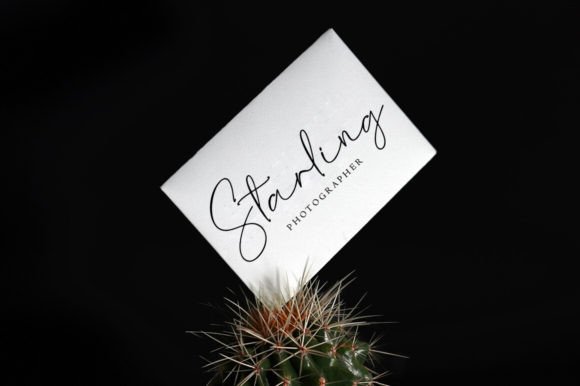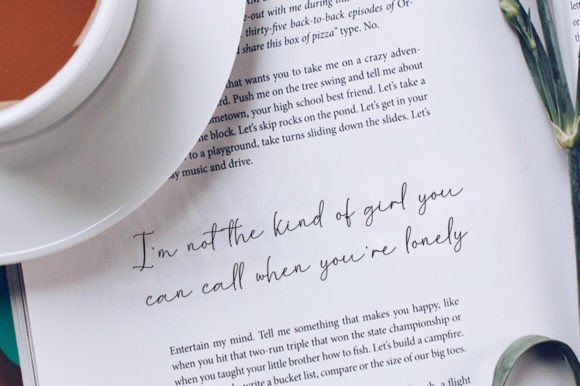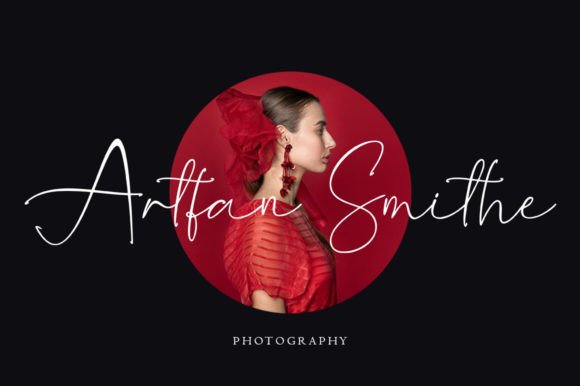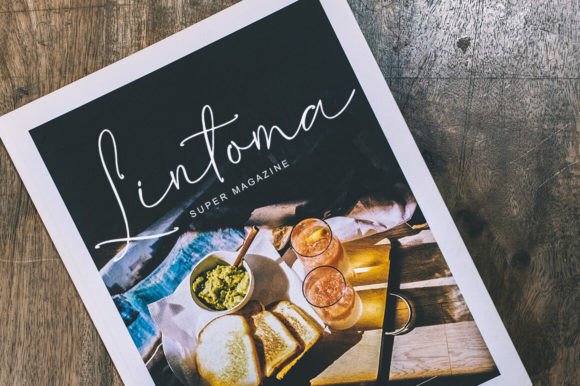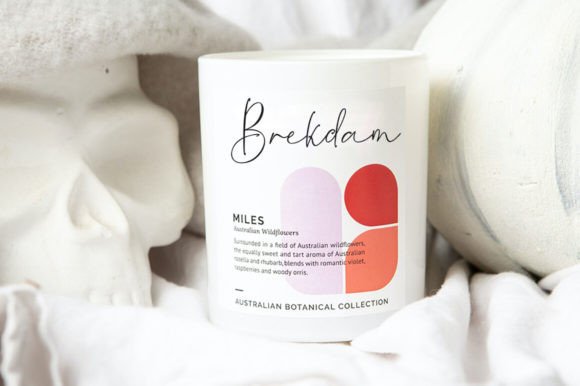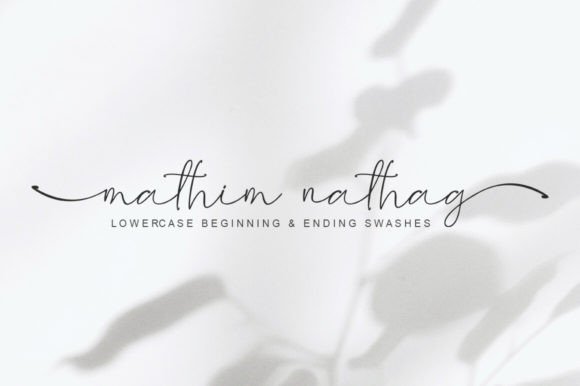
Fimtgona Font: The Ultimate 80s-Style Handwritten Signature Script
Are you a designer or crafter looking for a unique and stylish font to elevate your branding, packaging, or advertising projects? Look no further than Fimtgona Font, a handwritten signature script that embodies the natural flow and charm of the 80s style.
What is Fimtgona Font?
Fimtgona Font is a carefully crafted handwritten signature script that captures the essence of the 80s style. With its natural flow and fluid strokes, this font is perfect for adding a touch of elegance and sophistication to your designs. Whether you’re working on branding, red wine labels, vodka labels, packaging, stationery, invitations, business cards, movie covers, or advertising, Fimtgona Font is the ideal choice.
Key Features of Fimtgona Font
- Handwritten Signature Script: Fimtgona Font boasts a beautiful, handwritten signature script that adds a personal touch to your designs.
- Natural Flow: The font’s natural flow and fluid strokes give it a unique and organic feel that’s perfect for creating eye-catching designs.
- 80s Style: Fimtgona Font is deeply rooted in the 80s style, making it an excellent choice for designers and crafters who want to evoke a sense of nostalgia and retro charm.
- PUA Encoded: Fimtgona Font is PUA encoded, which means you can easily access all the amazing glyphs and ligatures without any hassle.
Fimtgona Font is an incredibly versatile font that can be used for a wide range of design projects, including:
- Branding: Create a lasting impression with Fimtgona Font’s elegant and sophisticated style, perfect for logos, business cards, and letterheads.
- Red Wine Labels and Vodka Labels: Add a touch of luxury and sophistication to your wine and vodka labels with Fimtgona Font’s elegant script.
- Packaging: Elevate your packaging designs with Fimtgona Font’s unique and eye-catching style, perfect for product labels, tags, and packaging materials.
- Stationery: Create beautiful stationery, including invitations, greeting cards, and letterheads, with Fimtgona Font’s elegant and refined style.
- Movie Covers and Advertising: Use Fimtgona Font to create stunning movie covers and advertising materials that capture the essence of the 80s style.
Why Choose Fimtgona Font?
With so many fonts available, why choose Fimtgona Font? Here are just a few reasons why designers and crafters love this font:
- Unique Style: Fimtgona Font offers a unique and distinctive style that’s sure to set your designs apart from the crowd.
- Ease of Use: With PUA encoding, you can easily access all the glyphs and ligatures, making it easy to use and incorporate into your designs.
- High-Quality Design: Fimtgona Font is carefully crafted with attention to detail, ensuring a high-quality design that’s perfect for professional projects.
In conclusion, Fimtgona Font is an exceptional handwritten signature script that’s perfect for designers and crafters looking to add a touch of elegance and sophistication to their designs. With its natural flow, 80s style, and PUA encoding, this font is an excellent choice for a wide range of design projects. Whether you’re working on branding, packaging, or advertising, Fimtgona Font is sure to impress.